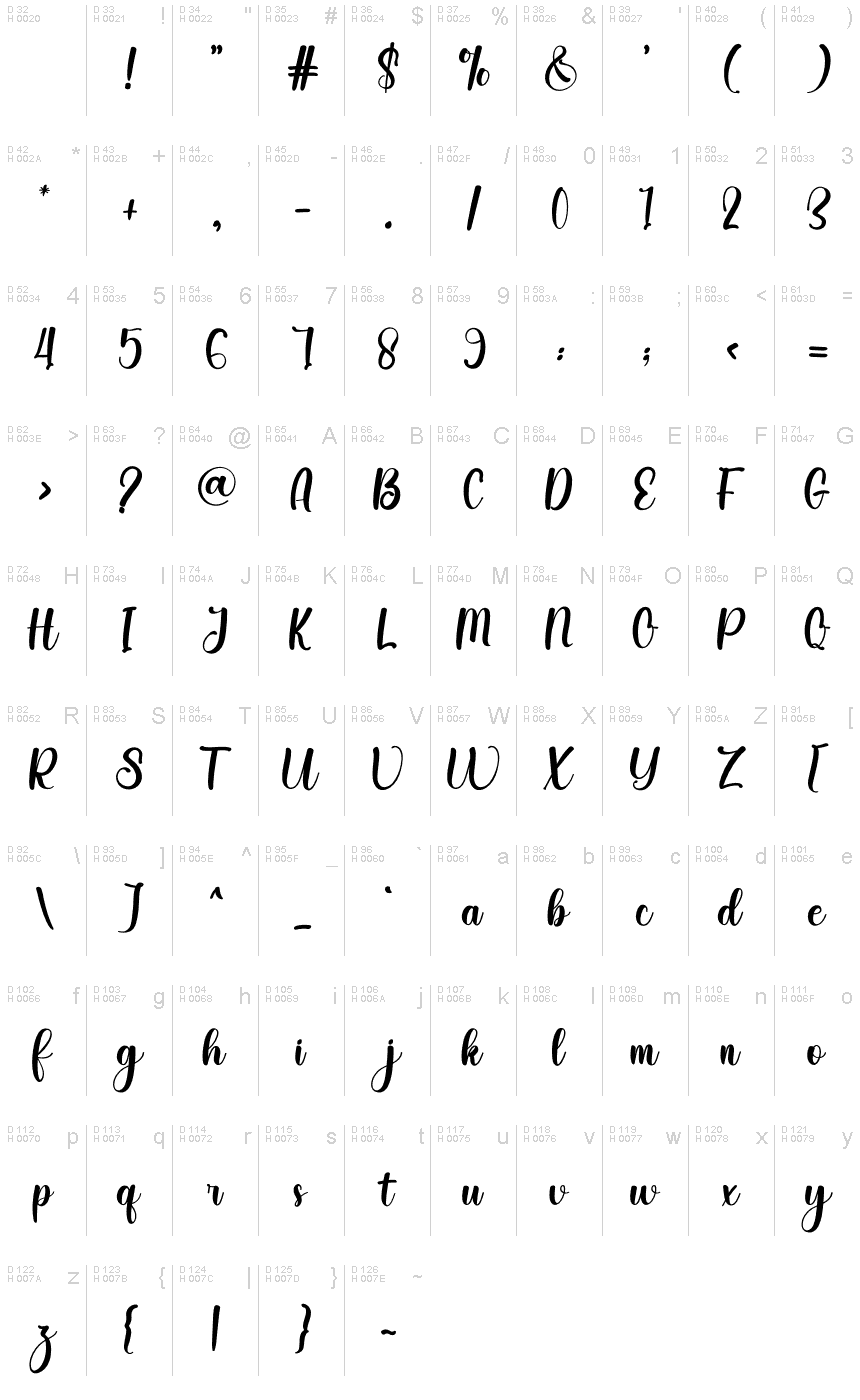
Simple Friday
Simple Friday, a calligraphic creation by Inermedia Studio, embodies elegance through its fluid and expressive letterforms. With a delicate balance between traditional calligraphy and modern simplicity, this font invites a sense of sophistication and personality to any project. The sweeping curves and fine lines suggest a handcrafted quality, making it an ideal choice for invitations, branding, and artistic designs where a touch of human flair is desired.
The aesthetic appeal of Simple Friday lies in its harmonious proportions and the seamless flow from one character to the next. Visual examination reveals a consistency in stroke weight that contributes to its readability while preserving an artisanal charm. Its unique characteristics—apparent in the smooth ascenders, descenders, and an understated playfulness in the swashes—offer designers versatility without compromising on style.
Perfect for applications that require an intimate yet polished look, Simple Friday bridges the gap between casual scripts and formal calligraphy. Whether used for digital media or print, it maintains its allure across various backgrounds and textures. This font's potential is vast; from personal stationery to upscale marketing materials, Simple Friday adds a bespoke touch that can elevate any creative endeavor.